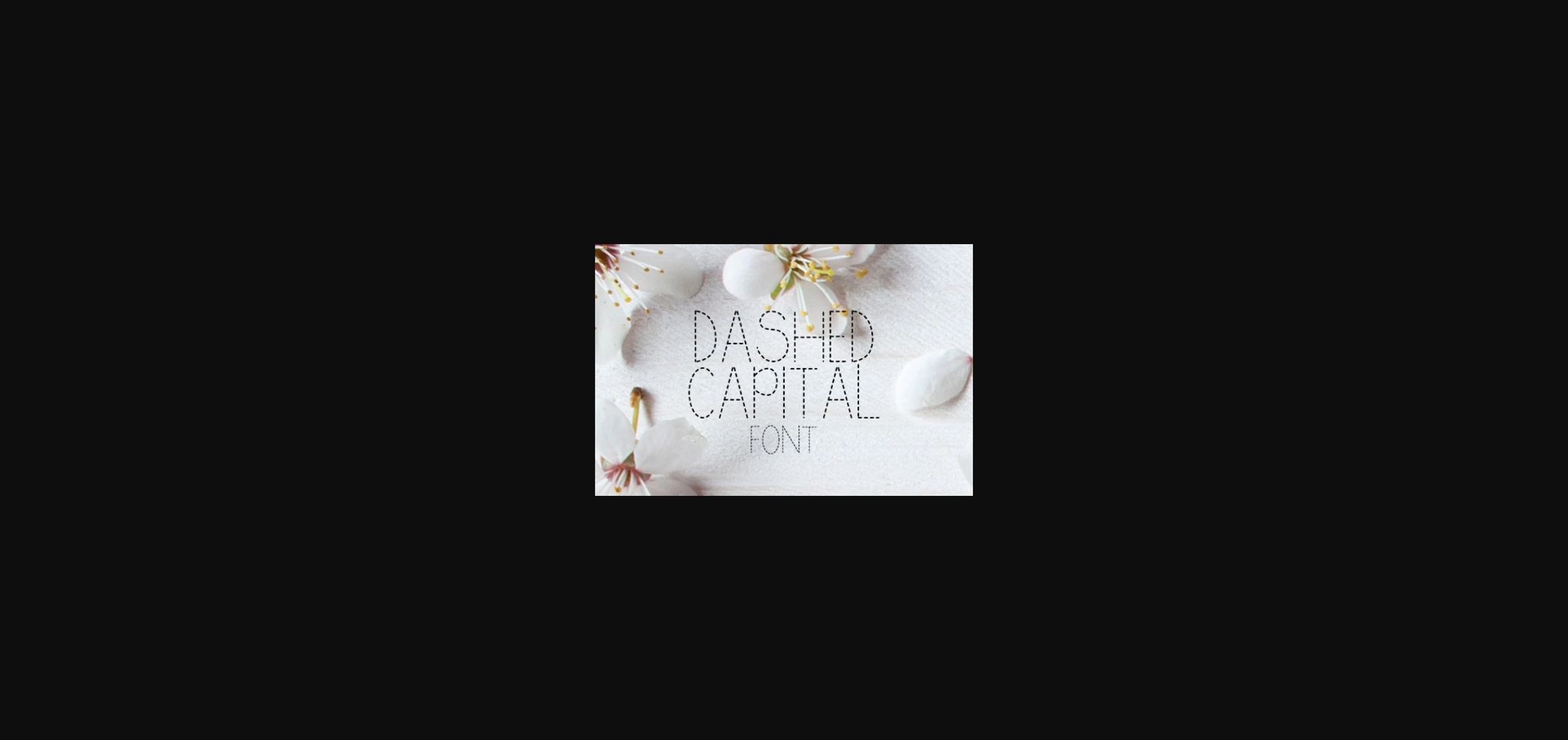
HomeSans Serif FontsDashed Capital Font Sans Serif Fonts Dashed Capital Font FacebookXPinterestWhatsApp 1 of 4 ... Dashed Capital Font Poster 2... Dashed Capital Font Poster 3... Dashed Capital Font Poster 4... About Dashed Capital Font Dashed Capital feels playfully nostalgic and delivers an incredible vintage aesthetic. Use this sans serif font to add that special retro touch to any design idea you can think of! DOWNLOAD NOW People also explored Gravel Font Bosqué Font Worksy Font Cloud Square Font Red Flavor Font Holiday Saturday Font History Walker Font Monkey Geek Font 616 0 TagsDashed Capital Font Previous articleDashed FontNext articleKumba Scrawl Font LEAVE A REPLY Cancel reply Comment: Please enter your comment! Name:* Please enter your name here Email:* You have entered an incorrect email address! Please enter your email address here Website: Save my name, email, and website in this browser for the next time I comment. Personal Use Free True Love Personal Use Free Read more about this font Market Love Personal Use Free Read more about this font Wanita Cantik Personal Use Free Read more about this font Neuropol Personal Use Free Read more about this font BLOG Free Fonts Risk: Why Free Fonts Can Be Dangerous for Designers Free Fonts Risk: Why Free Fonts Can Be Dangerous for Designers Using free fonts is a common practice in web and graphic design. However, the... Transform Your Website: Elevate Your Typography with 7 Best Web Font Generators How to Install and Use Fonts on Windows, macOS, and Web Projects Top 10 Handwritten Fonts That Elevate Your Designs